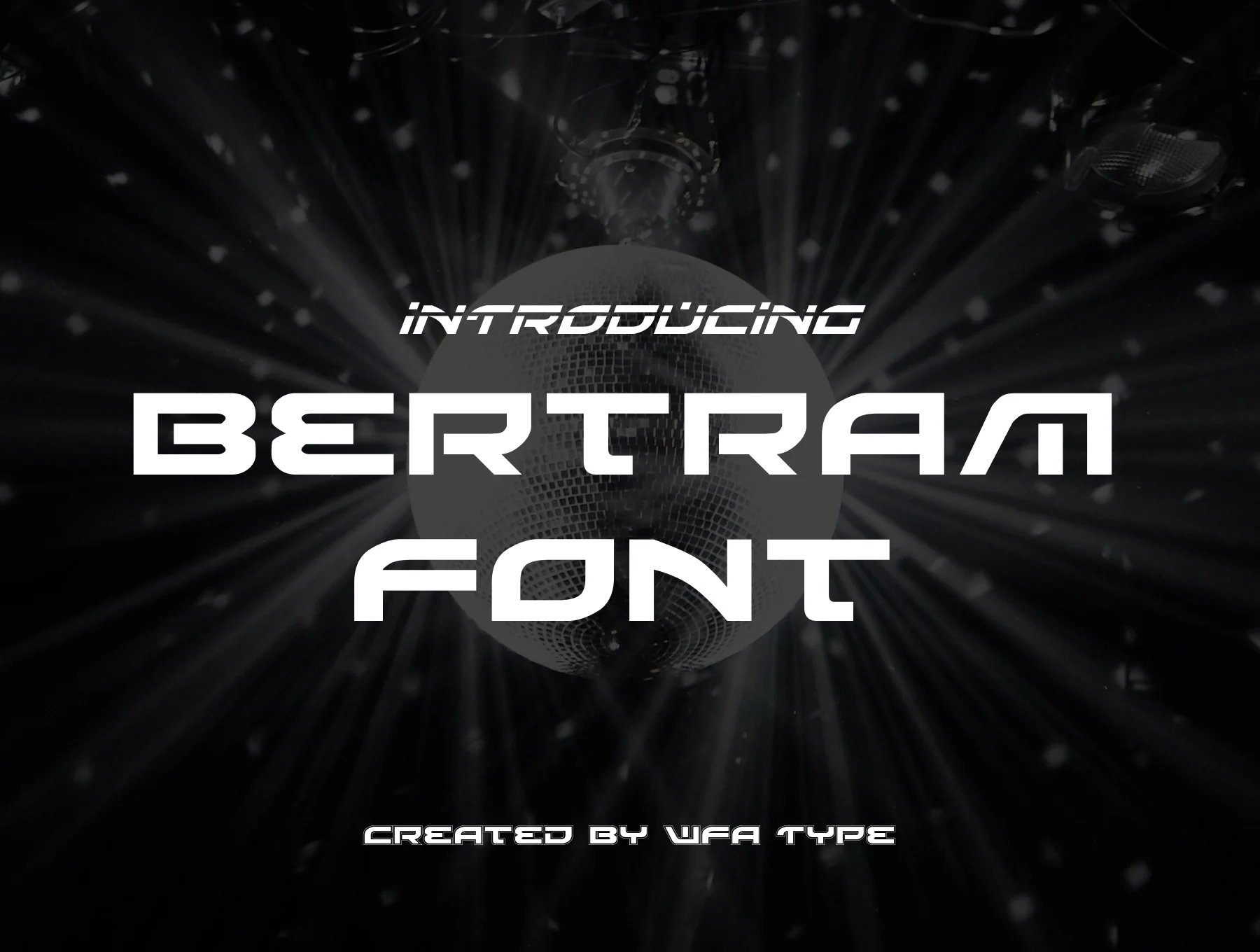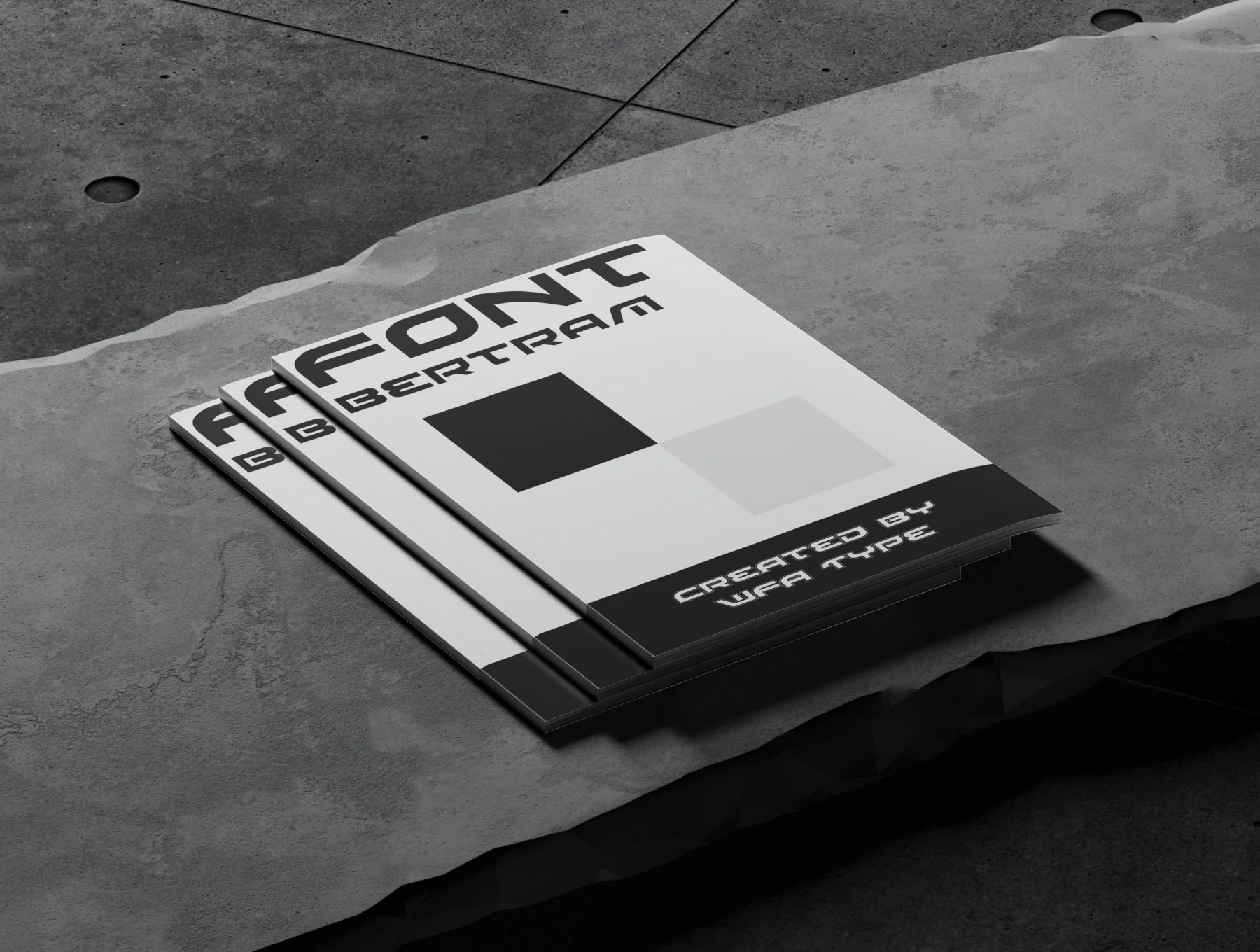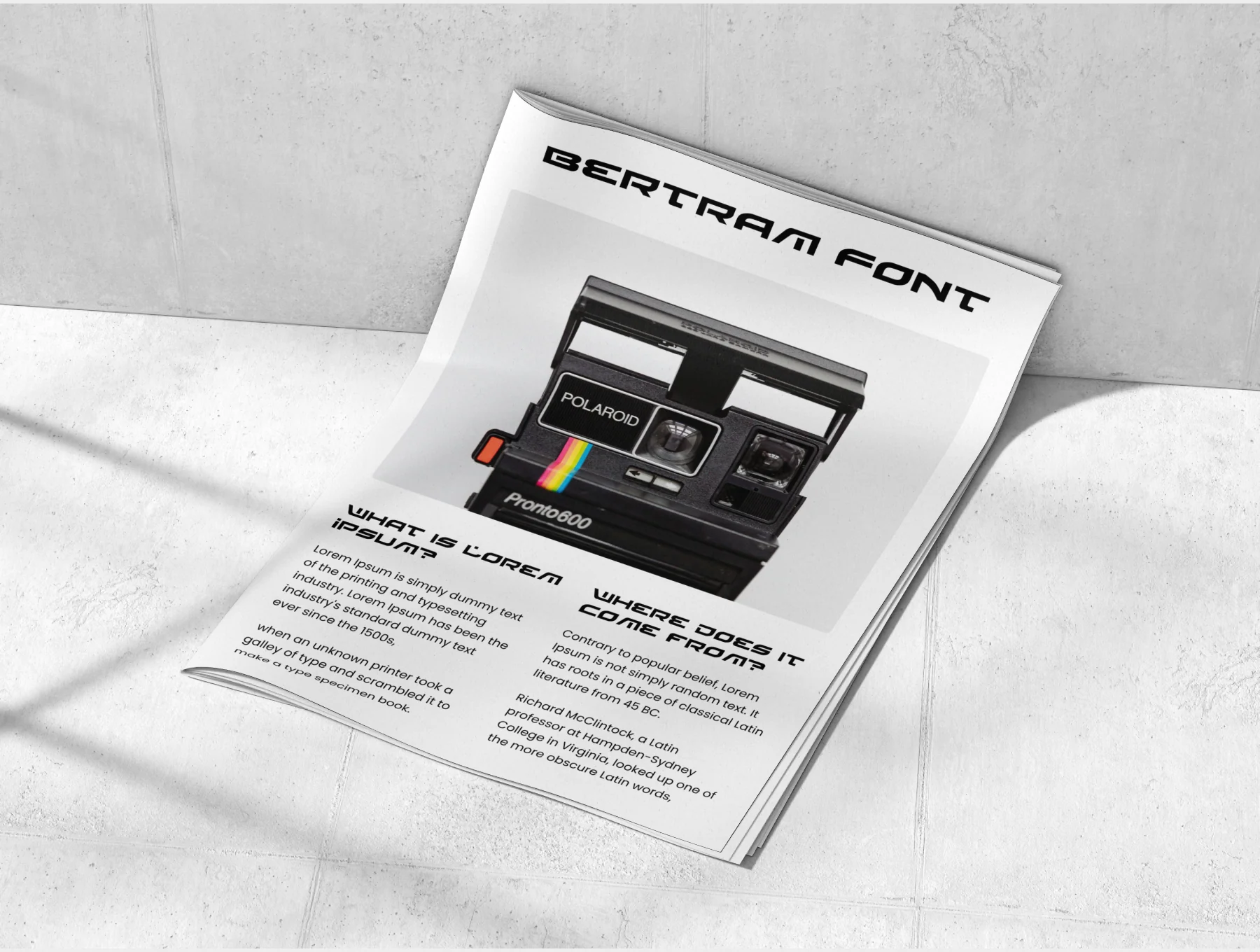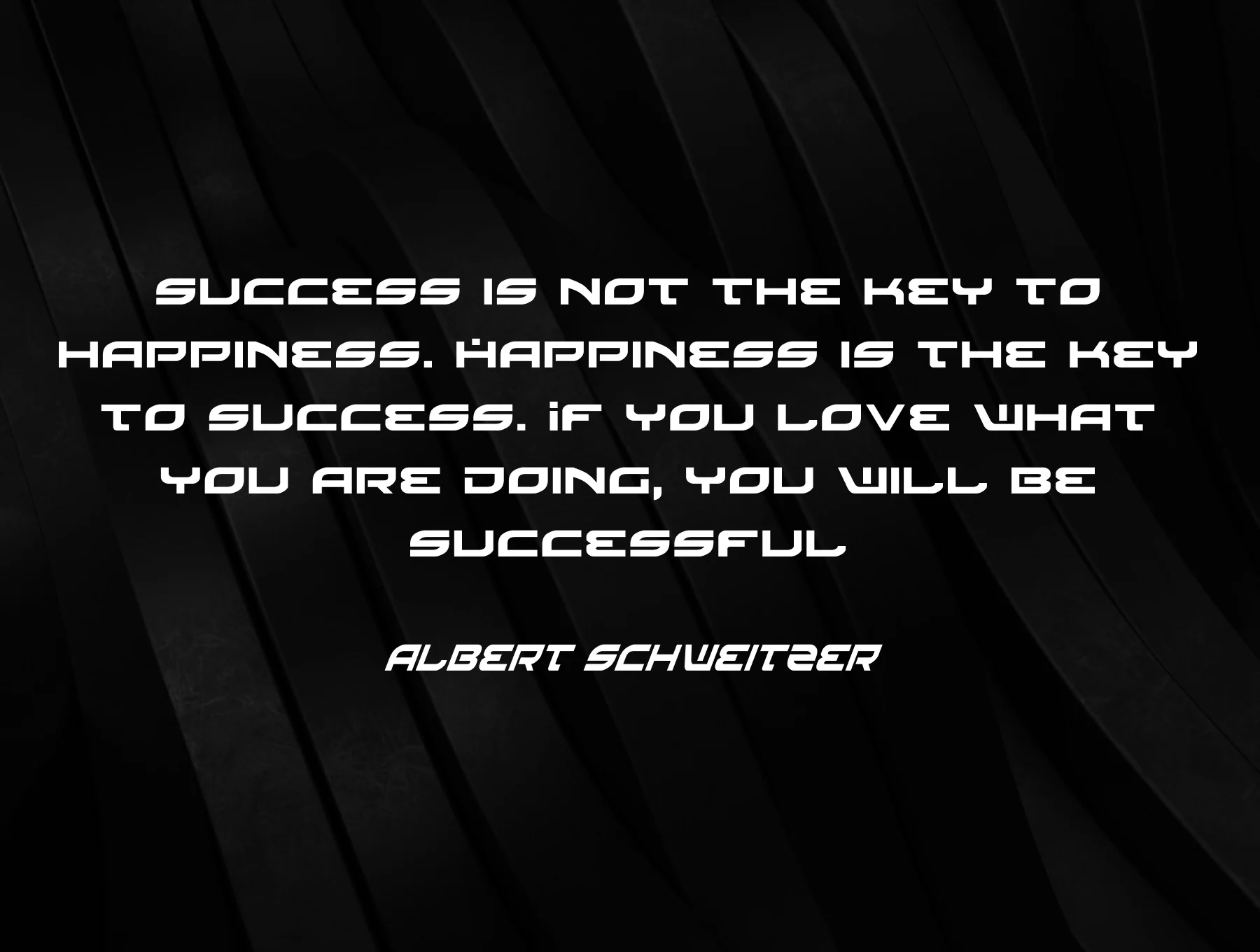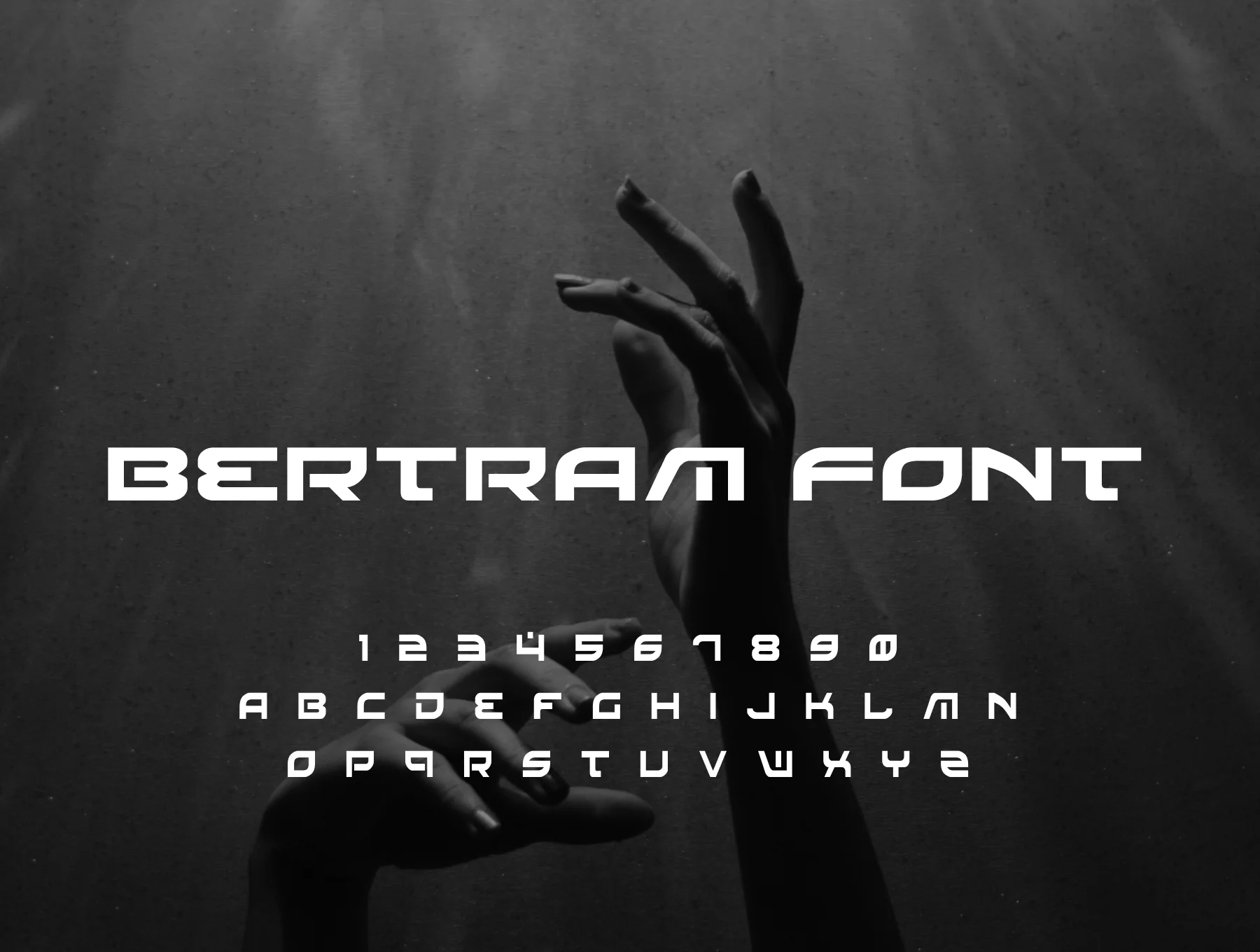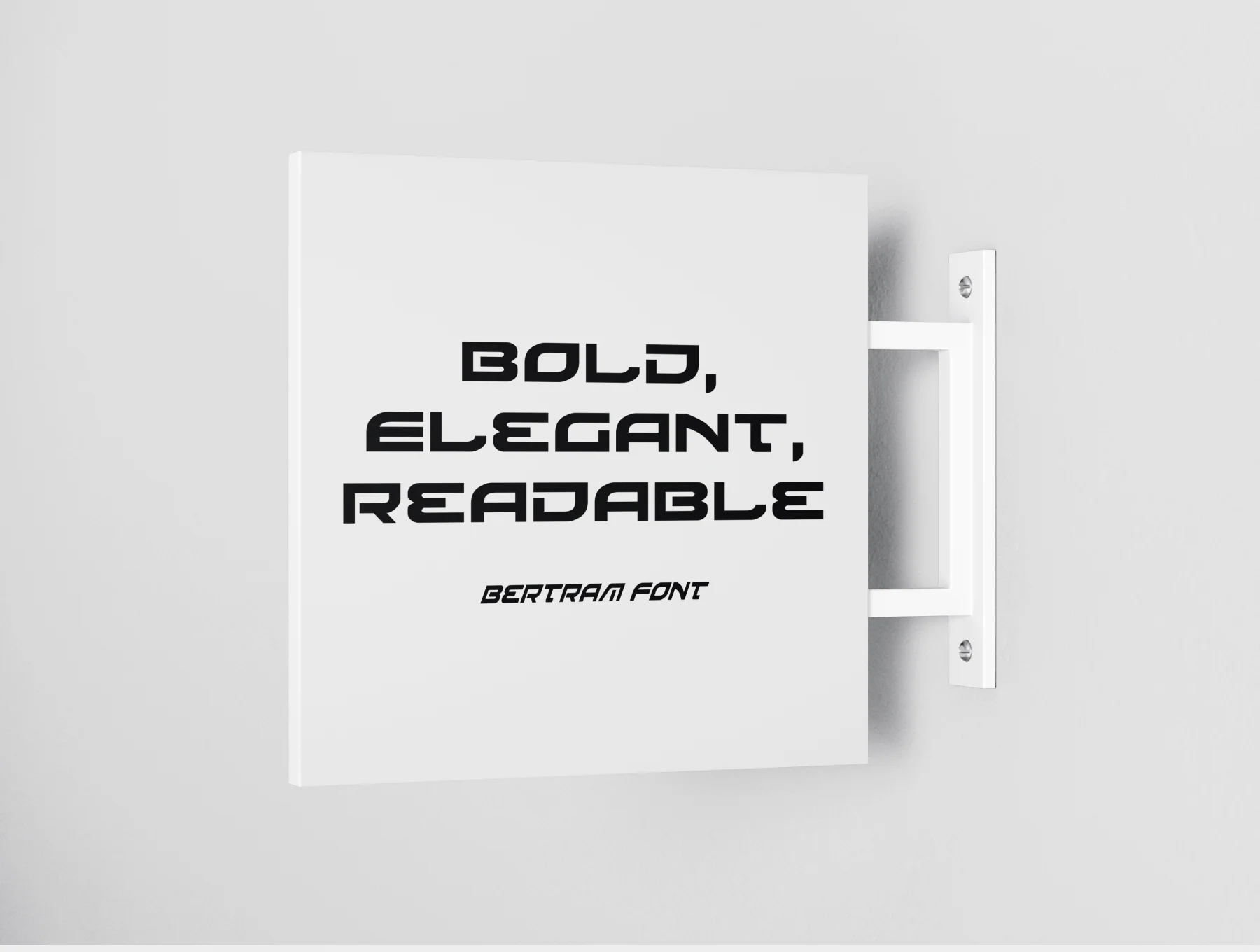
Bertram Font
Bertram Typeface from What The Font Std
Polished, uncluttered design
Numerical and practical
Bertram Font is a contemporary, adaptable typeface suited to striking titles, refined brand identities, and smooth interface layouts. Its distinctive look adds personality while staying easy to read, making it a valuable choice for designers and creative pros.